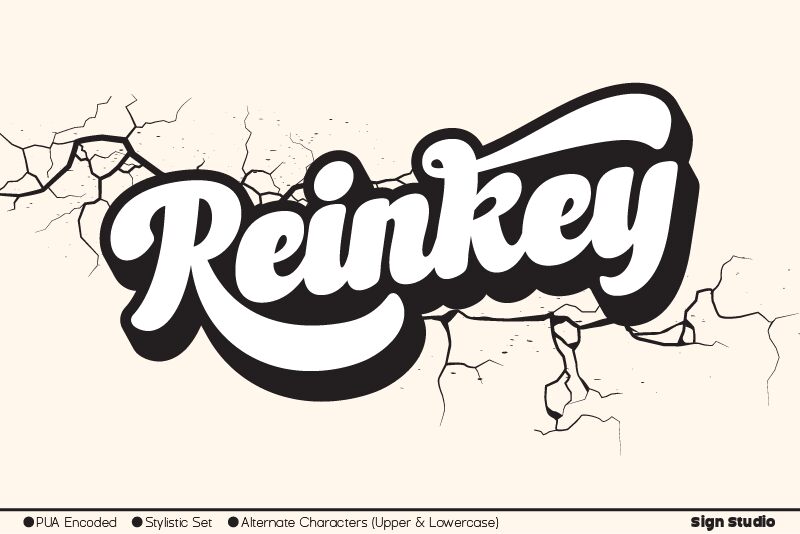
Reinkey, the extraordinary creation by Sign Studio, is a captivating smooth brush font that effortlessly combines elegance with a touch of vintage charm. With its extra-bold weight, Reinkey commands attention and adds a bold statement to any design project. Whether you're designing retro-inspired logos, eye-catching posters, or stylish packaging, this versatile font is perfect for adding a nostalgic yet contemporary flair. Let Reinkey be your creative companion as you embark on diverse projects like fashion branding, album covers, or even trendy social media graphics. Unleash the power of Reinkey and watch your designs come to life!
Reinkey Font Family by Sign Studio